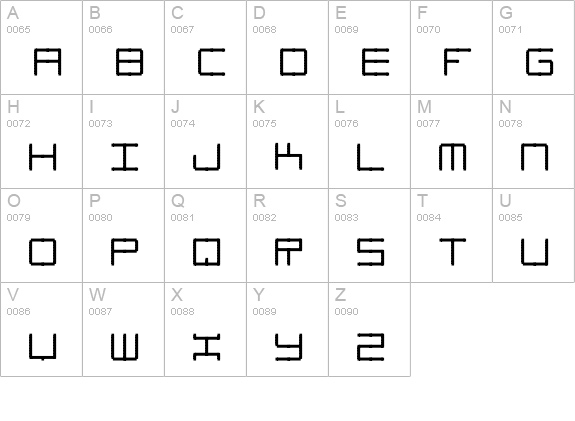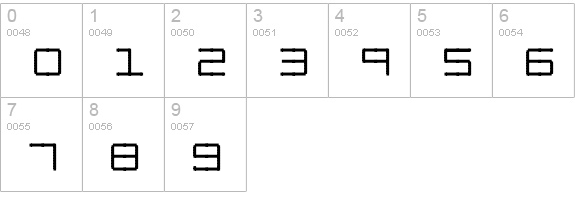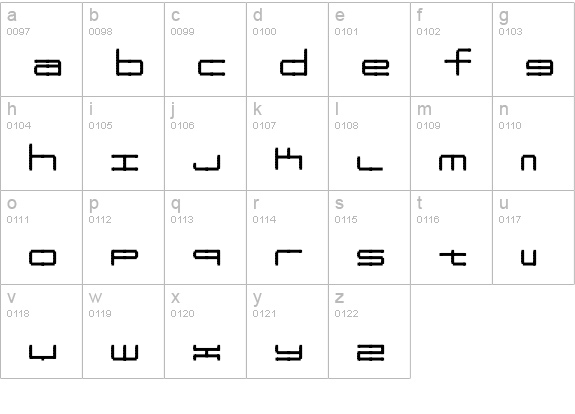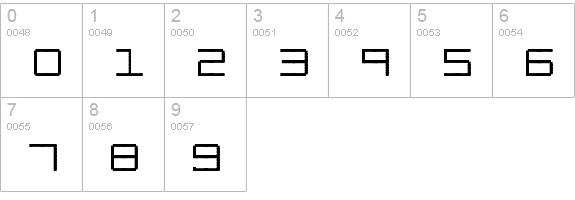
Oscilloscope 4 Font Details
Oscilloscope 4 font is a modern and stylish typeface that is perfect for adding a tech-savvy touch to your designs. This versatile font features sleek lines and geometric shapes that give it a futuristic look. Whether you're working on a digital project, branding materials, or a creative design, Oscilloscope 4 font is sure to make a statement. What's even better is that Oscilloscope 4 font is freely available to download at FontsMarket.com. With just a few clicks, you can add this eye-catching font to your collection and start using it in your projects right away. Don't miss out on the opportunity to enhance your designs with this unique and contemporary typeface. Download Oscilloscope 4 font today and take your creativity to the next level!